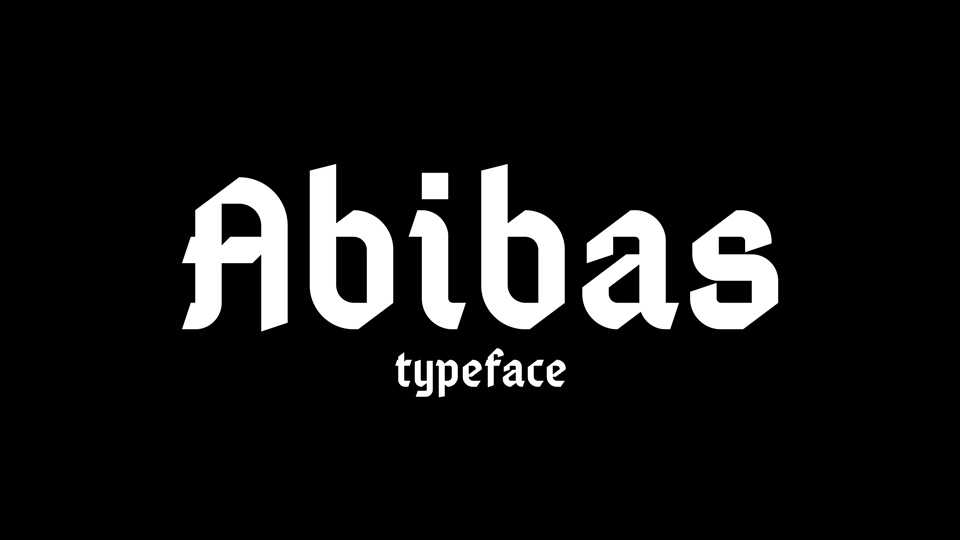
Download Abibas font, a modern geometric blackletter font, an extension of Gamaliel by Rafael Ferran i Peralta. Perfect for logos, branding, merchandise, posters, tattoo and other authentic projects.
Designer: Christ Trekker